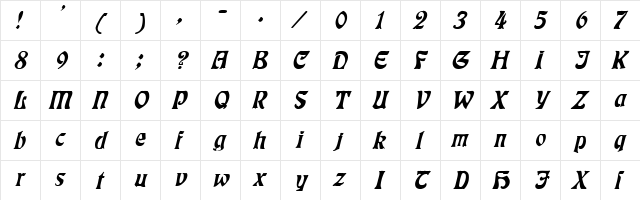
Cursed 5 Italic
Design Context for Cursed 5 Typeface
Cursed 5 is a composed and adaptable typeface that performs quietly and consistently across a wide range of design contexts. The slanted form adds forward momentum and visual energy.